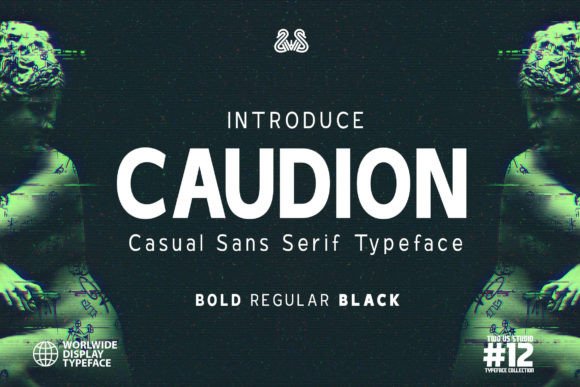
Behold, Caudion, a sans serif font family crafted to redefine your design horizons! Unleash the power of simplicity and casual elegance with this minimalist and clean font that effortlessly elevates your creations. Immerse yourself in the world of Caudion, where style meets functionality, and every letter becomes an artistic expression.
With Caudion, manifest your ideas into captivating books, magazines, and social media posts that leave an unforgettable impression. Enchant your invitations with a touch of personalized charm and make every word resonate with authenticity. Caudion transcends the boundaries of ordinary fonts, becoming an extension of your creative vision.
As you embark on your design journey with Caudion, discover a world of versatility that knows no bounds. Its clean lines and unpretentious nature blend seamlessly into any project, allowing your content to shine. Whether you're crafting research posters that demand attention or captivating headlines that ignite curiosity, Caudion rises to the occasion, delivering impact and clarity in equal measure.
Step into the realm of limitless possibilities with Caudion, a font designed to elevate your designs and captivate your audience. Transform your words into visual masterpieces, leaving a lasting impression with every stroke. Let Caudion be your creative companion, guiding you toward design excellence. Embrace the simplicity, revel in the elegance, and unlock the full potential of your artistic expression.